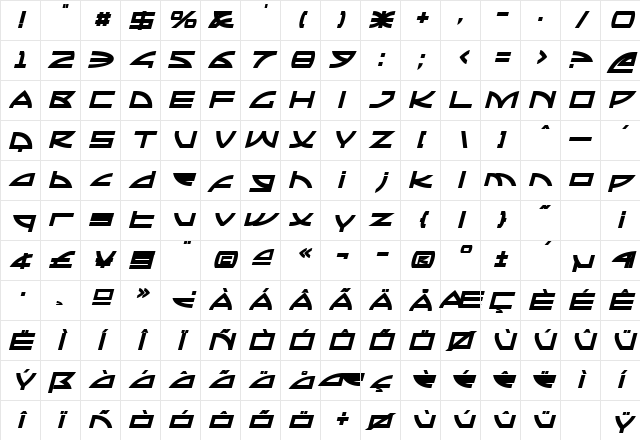
Rapture BoldOblique
Style: BoldOblique
Design Context for Rapture
Rapture is a composed and adaptable typeface that performs quietly and consistently across a wide range of design contexts. The slanted form adds forward momentum and visual energy. Its bold stroke weight gives it real presence on the page.